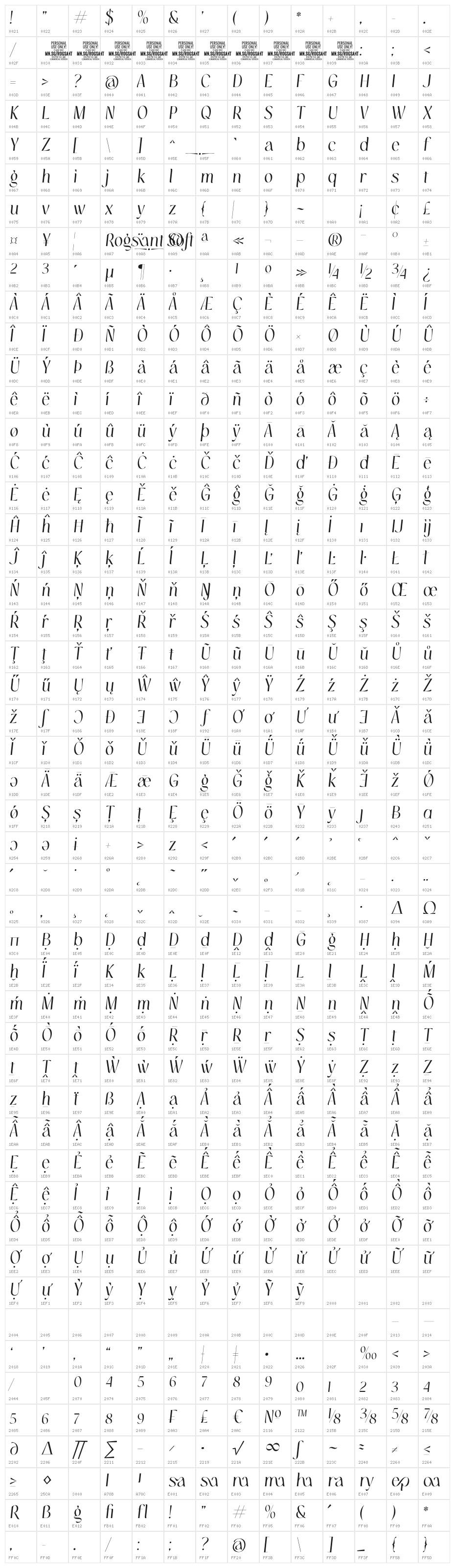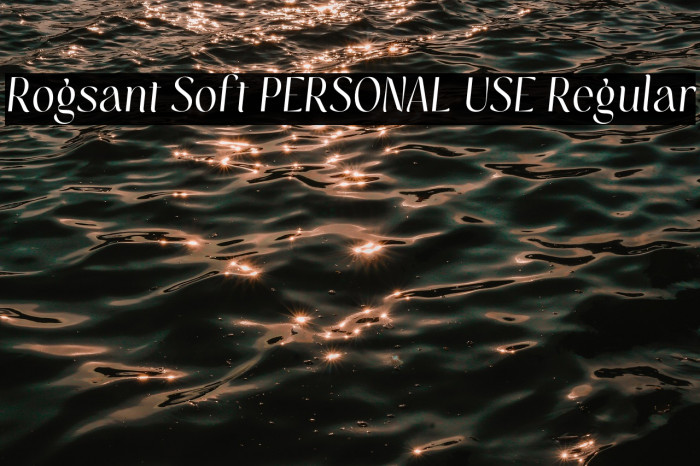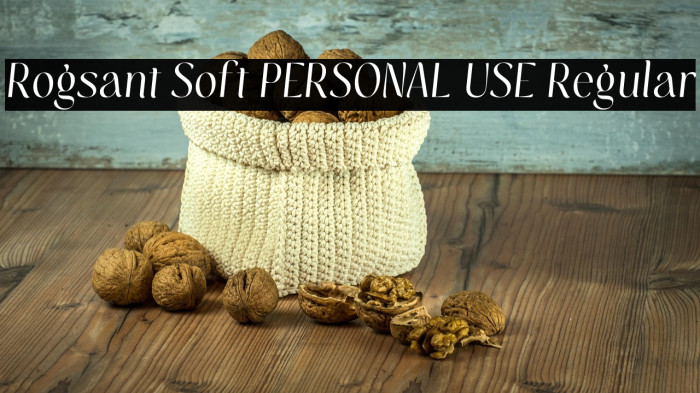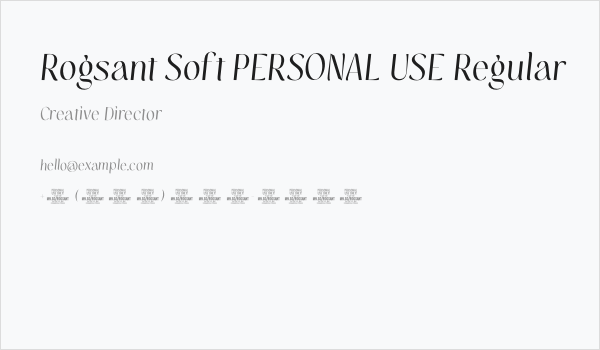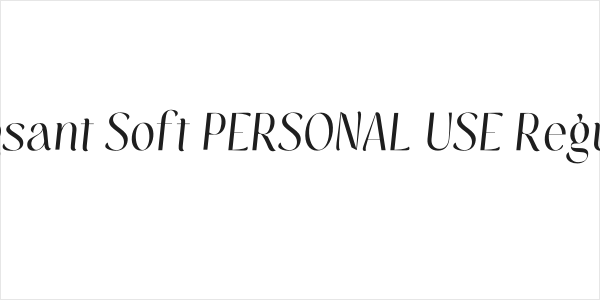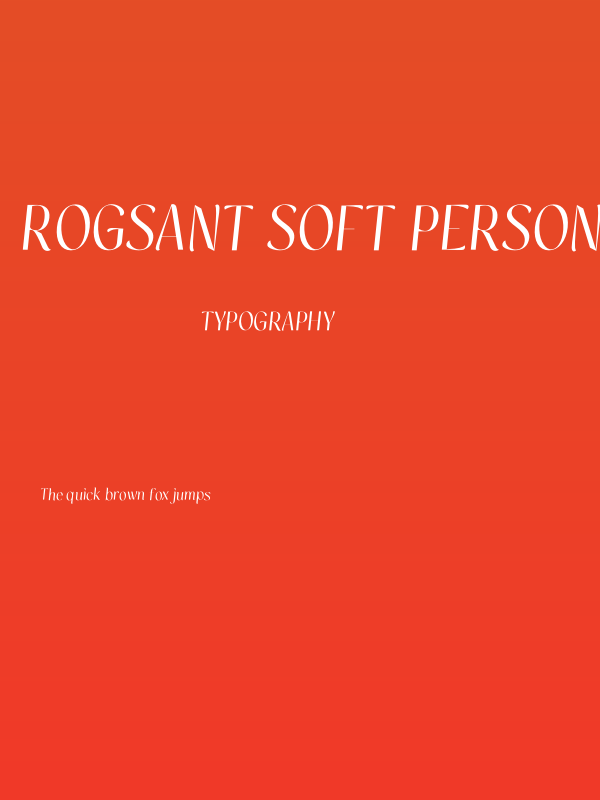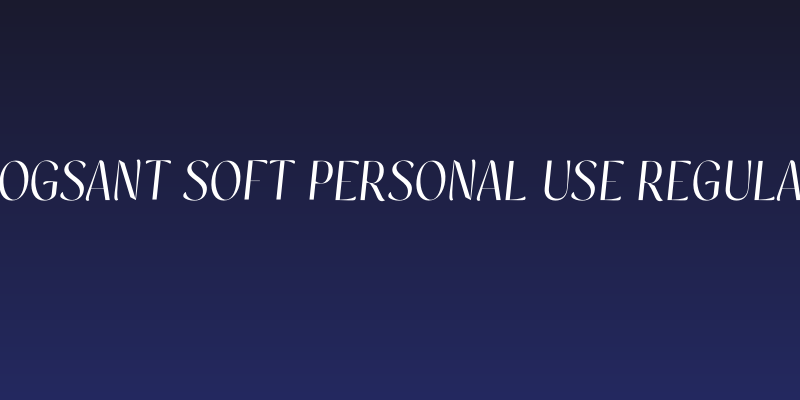
Rogsant Soft PERSONAL USE Regular Font
Rogsant Soft PERSONAL USE Regular Description
This font features a sleek and modern design with a slight italic slant, giving it a dynamic and elegant appearance. The characters are well-defined with smooth curves and sharp edges, creating a sense of movement and sophistication. The uppercase letters are tall and commanding, while the lowercase letters maintain a consistent flow. The numerals are clear and distinct, matching the overall style of the alphabet. Special characters are included, maintaining the font's cohesive look. This font is versatile, suitable for various design projects that require a touch of elegance and modernity.
| Use Case | Headlines, Logos, Editorial Design |
| Proposed Projects | Ideal for branding, editorial design, fashion magazines, and luxury product packaging. |